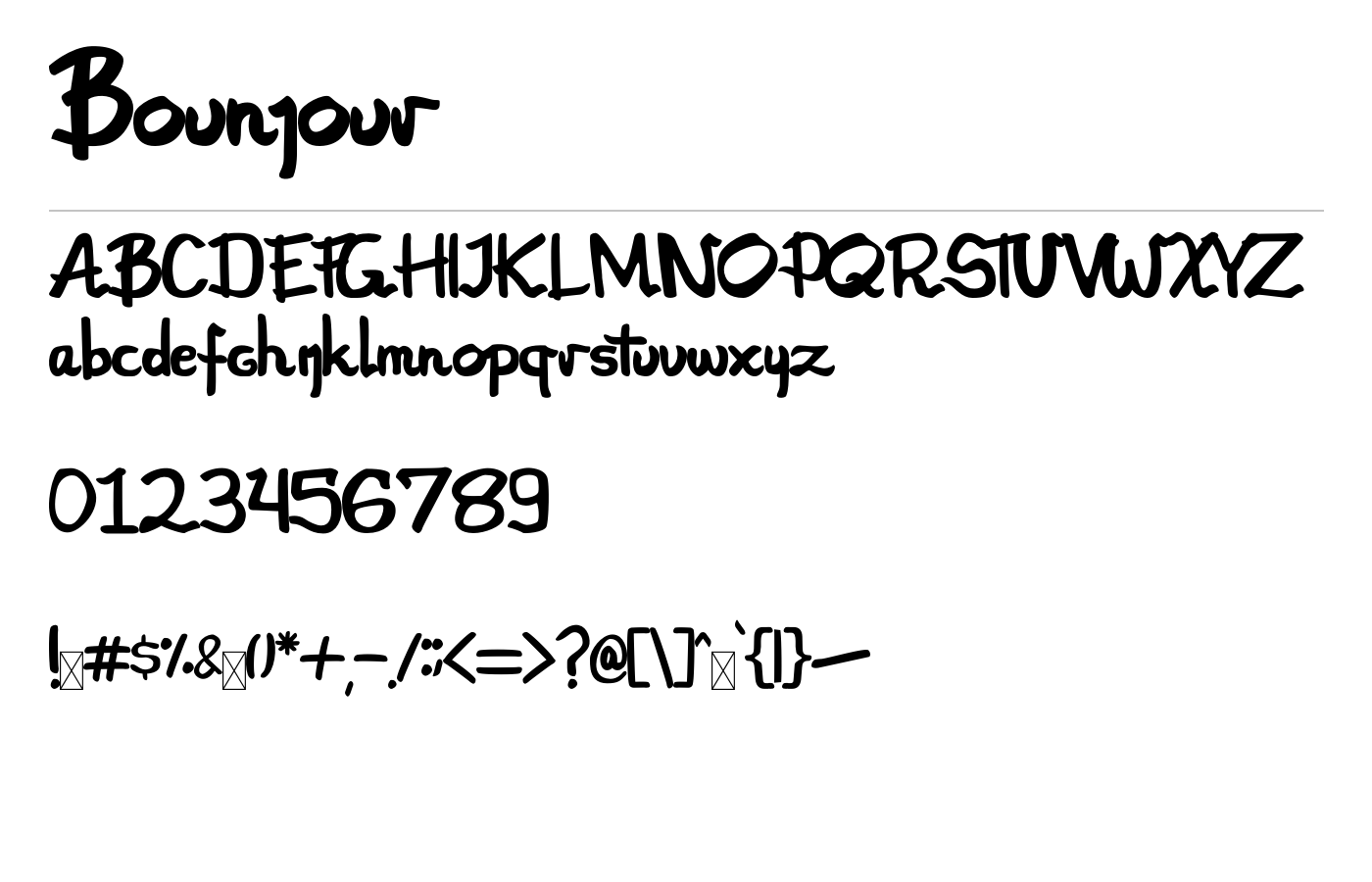
Bounjour is a playful and casual handwritten font with a lively and slightly irregular style that gives it a friendly, approachable character. Its bold, rounded strokes and rounded terminals create an informal yet clear appearance, making it perfect for creative projects, children's materials, and fun branding that wants to convey warmth and spontaneity. This font works well in headlines, logos, and packaging where an engaging and personal touch is desired.
Bounjour Font
About Bounjour Font